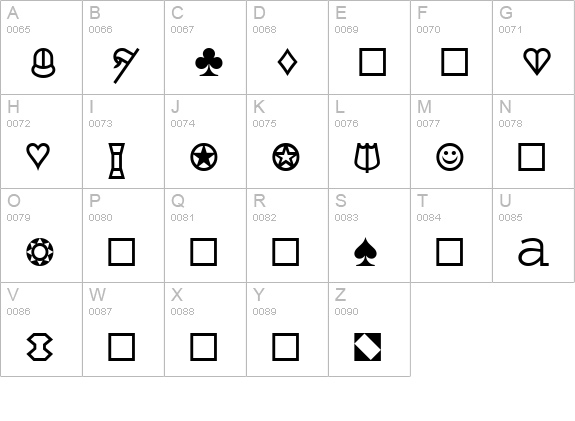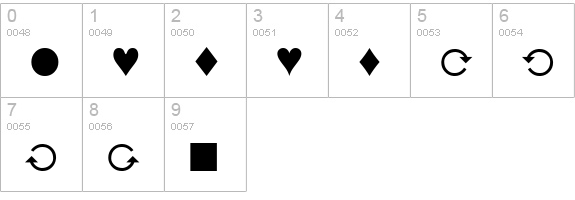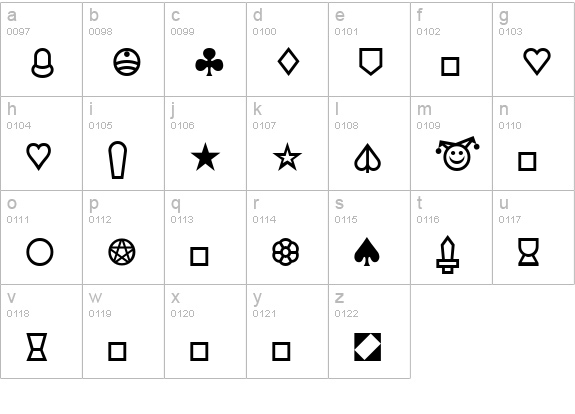
Cards Font Details
Cards font is a versatile and stylish typeface that exudes a sense of elegance and sophistication. With its clean lines and modern look, this font is perfect for a wide range of design projects, from invitations to branding materials. The unique and eye-catching design of Cards font will make your text stand out and leave a lasting impression on your audience. Best of all, Cards font is completely free to download at FontsMarket.com! That's right, you can add this beautiful font to your collection without spending a dime. So why wait? Head over to FontsMarket.com today and start using Cards font to take your designs to the next level.